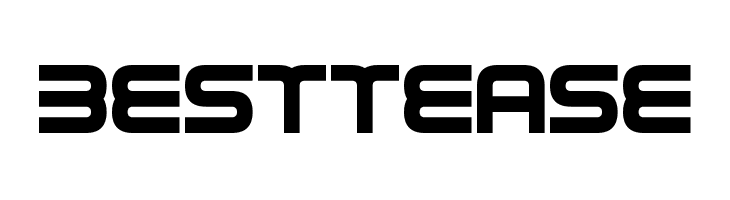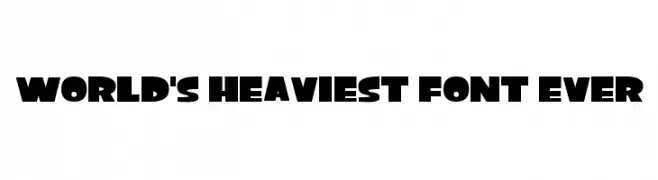
( Fonts by Adam Robinson )
A futuristic, geometric font with circular and linear elements.
A bold, heavy font with a strong, impactful presence.
An elegant, flowing script font with ornate uppercase and smooth lowercase letters.
( Fonts by Putra Khan )
A dynamic and elegant script font with flowing, cursive letterforms.
( Fonts by aiyari )
A bold, expressive script font with dynamic curves and interconnected letters.
A bold, outlined geometric font with a modern and structured appearance.
A bold, distressed font with a vintage, rugged appearance.